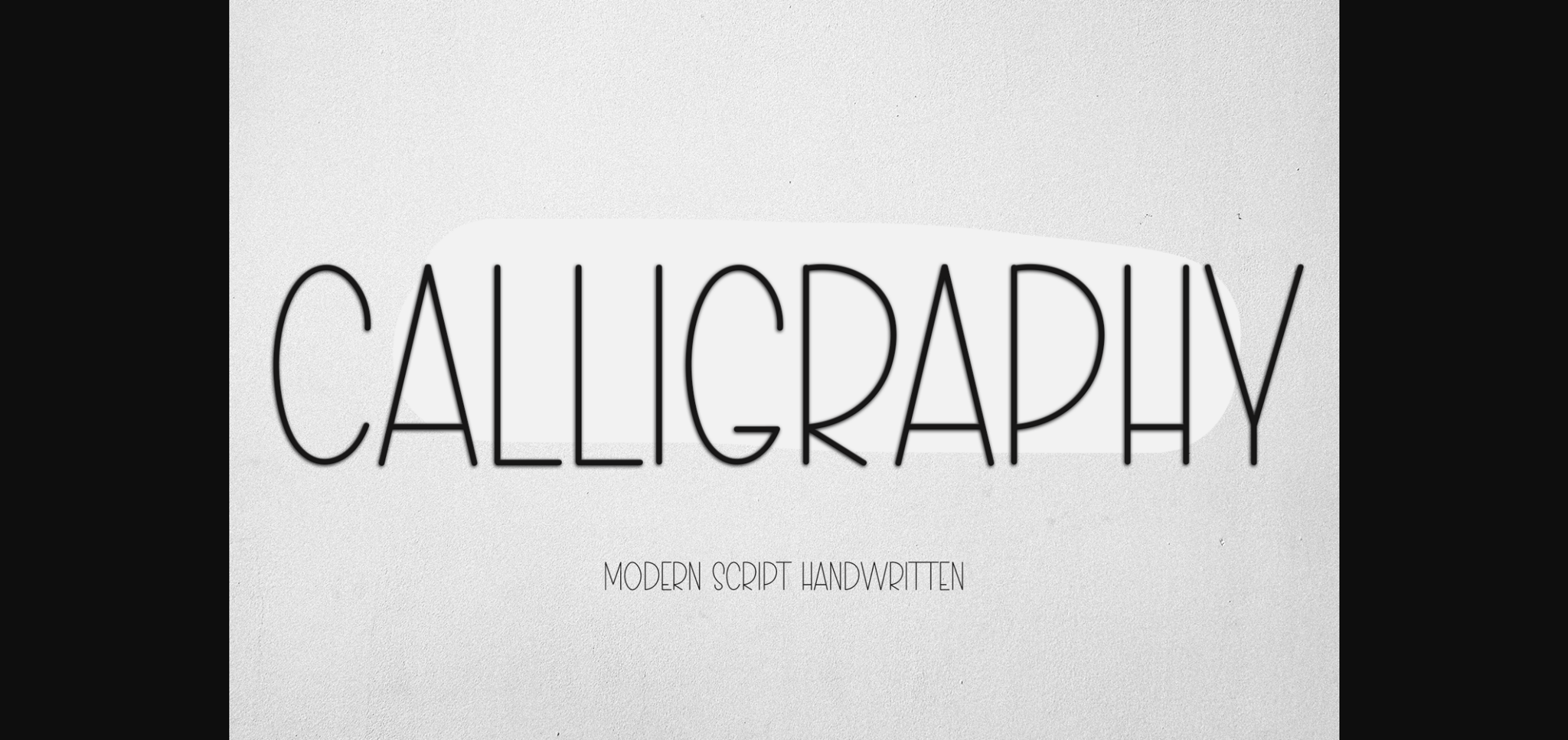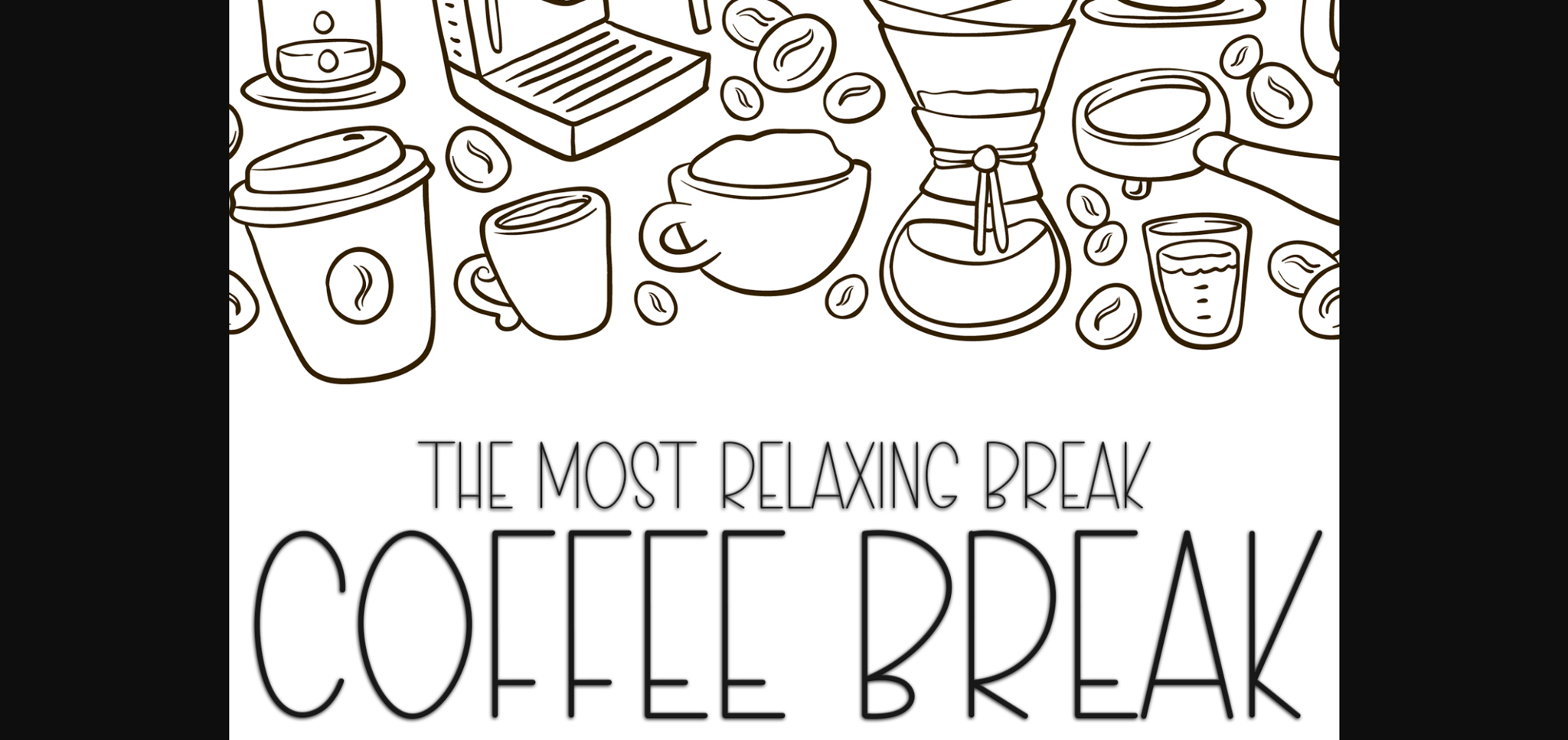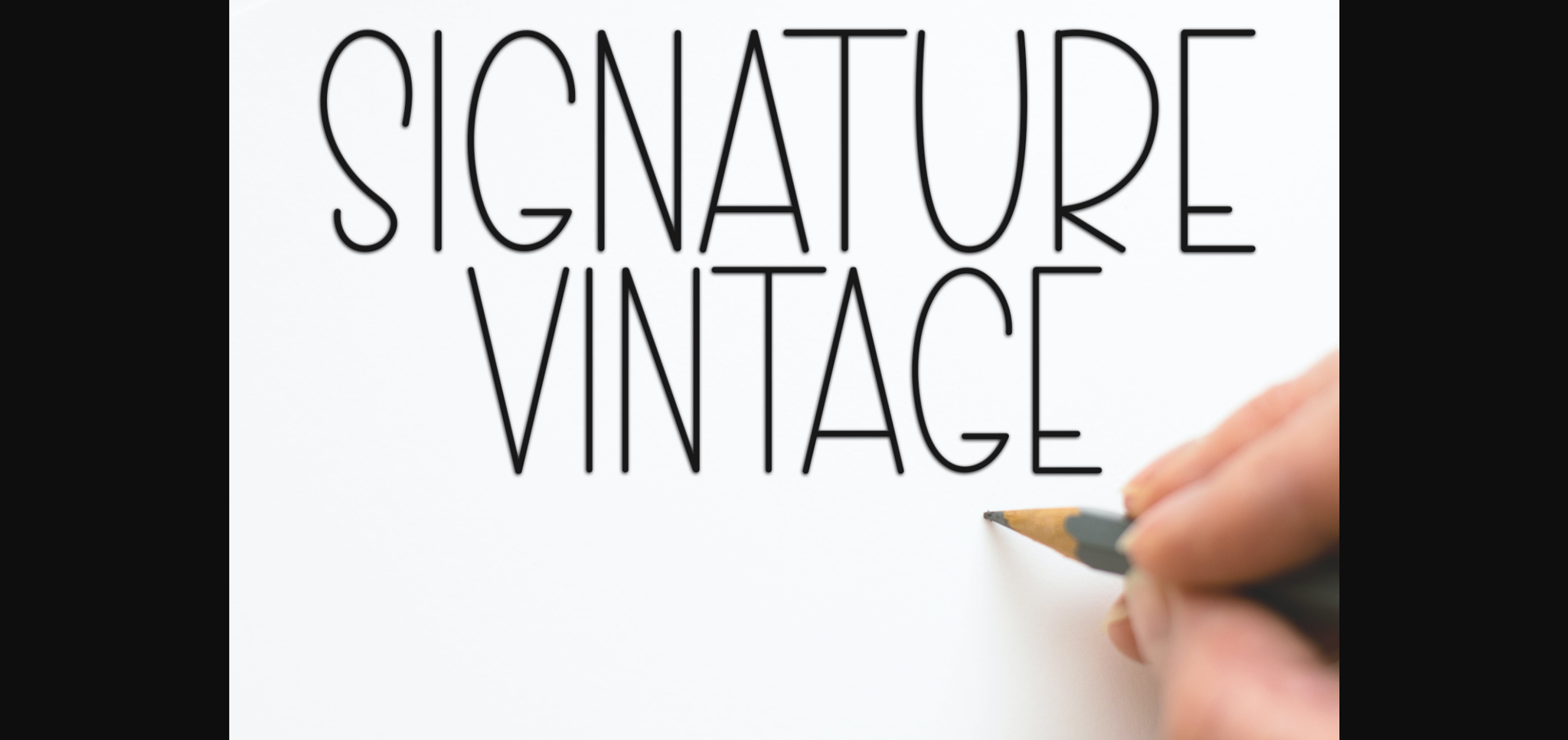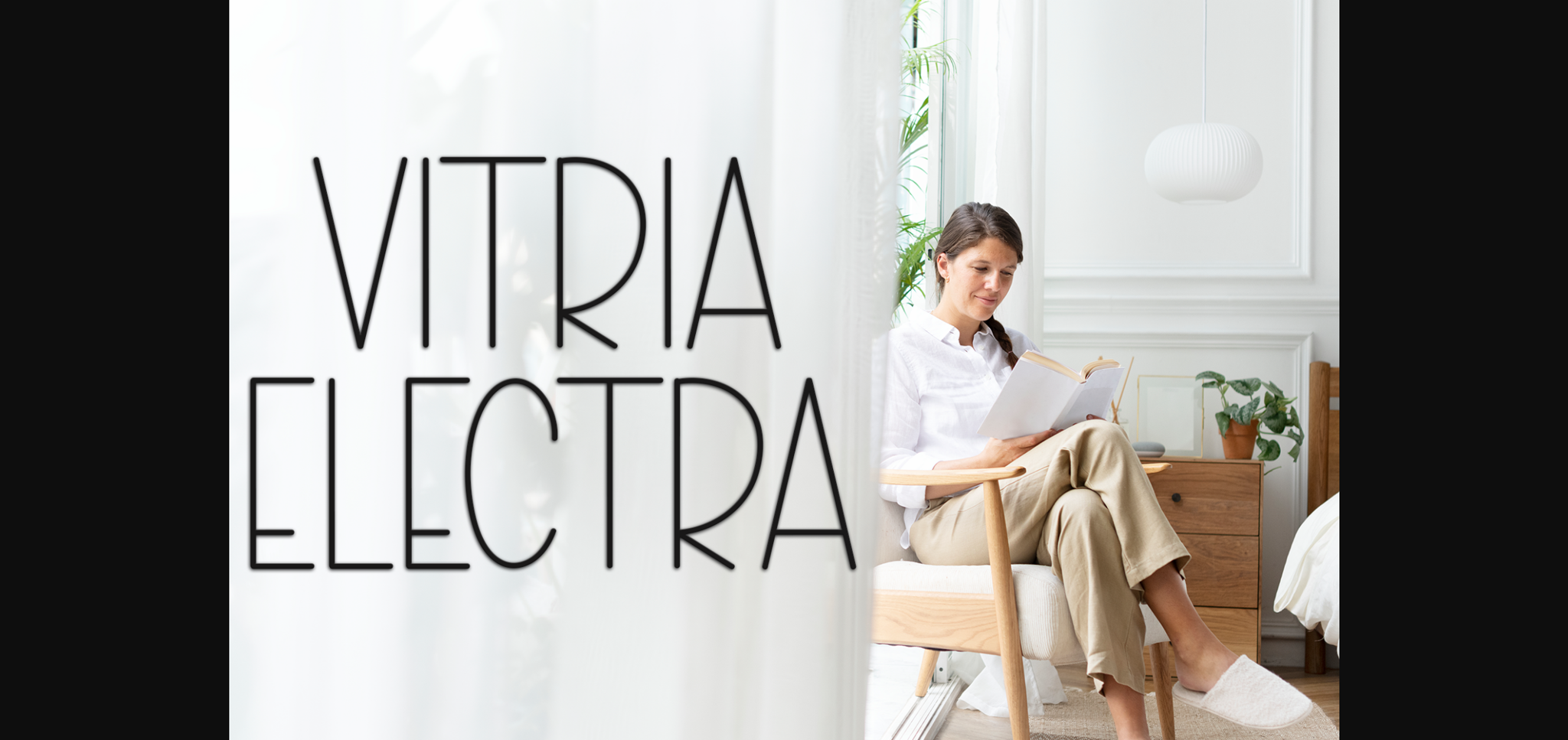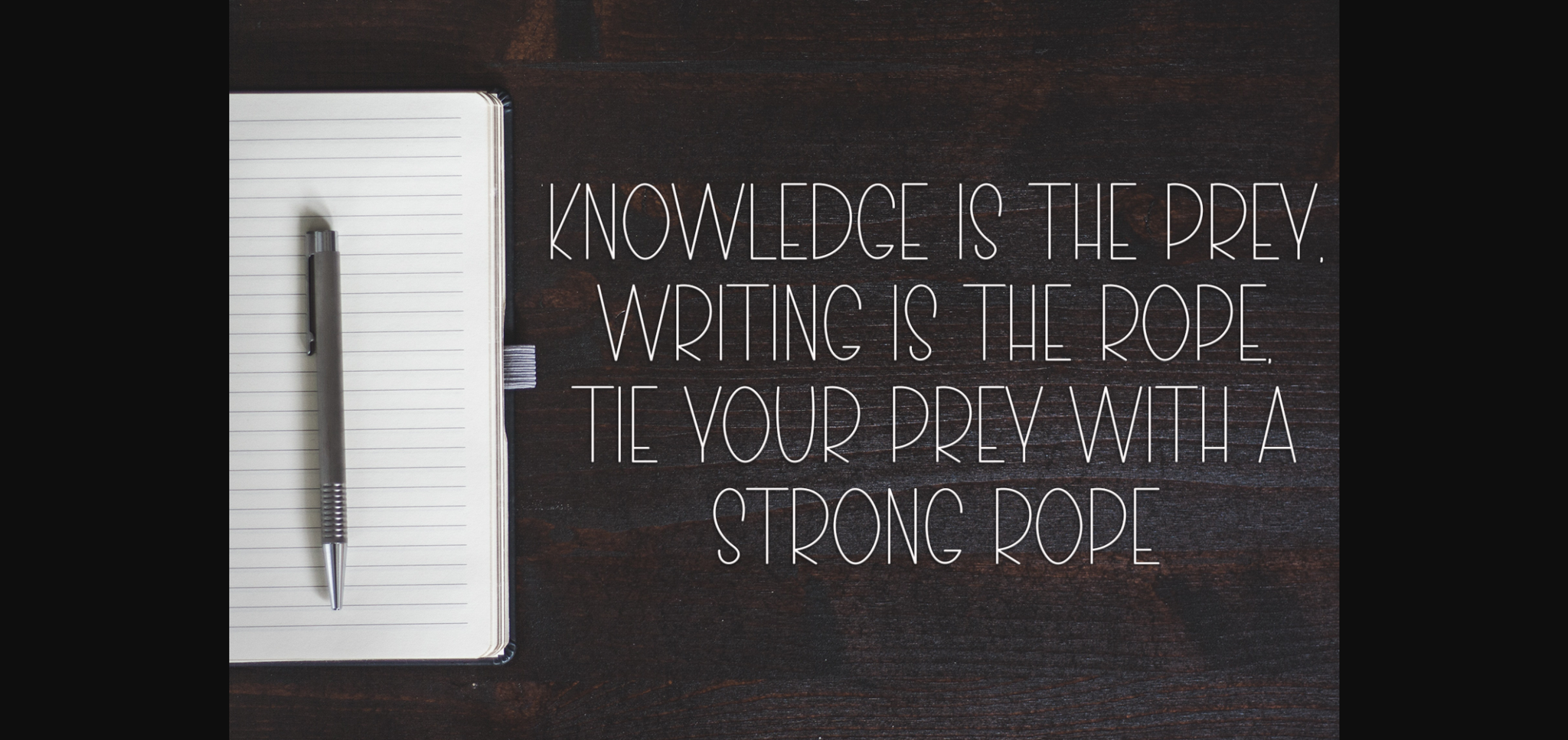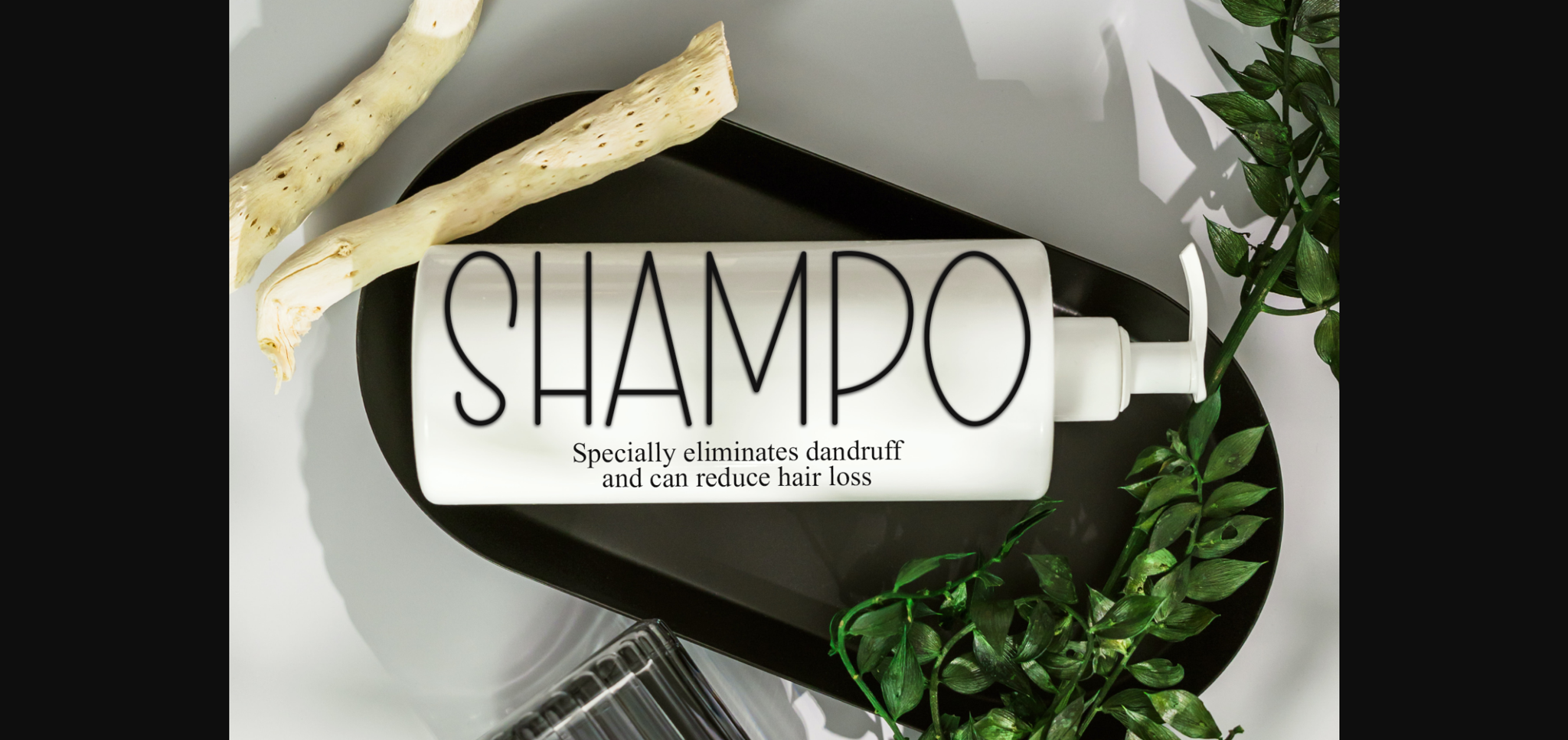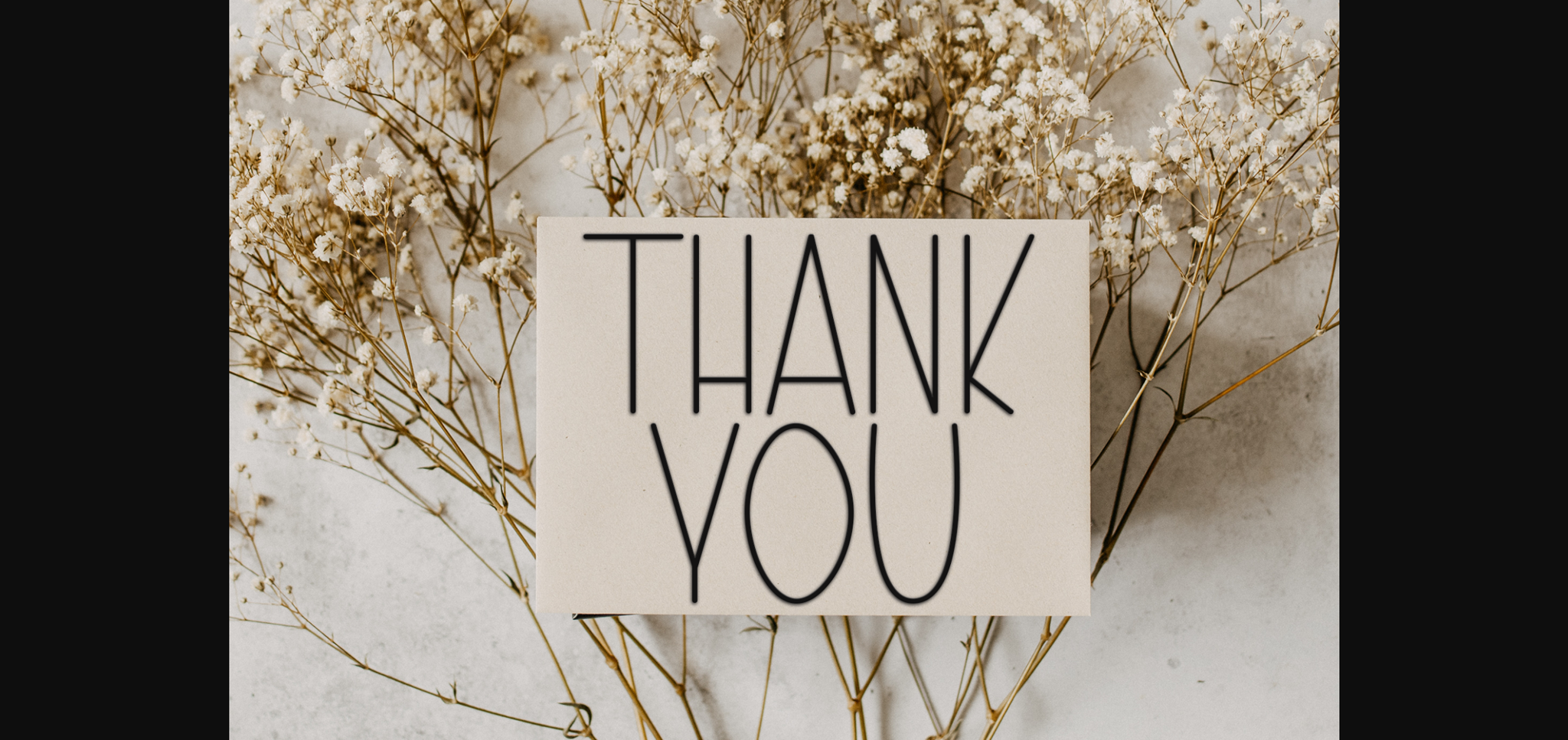
HomeSans Serif FontsCalligraphy Font Sans Serif Fonts Calligraphy Font FacebookXPinterestWhatsApp 1 of 9 ... Calligraphy Font Poster 2... Calligraphy Font Poster 3... Calligraphy Font Poster 4... Calligraphy Font Poster 5... Calligraphy Font Poster 6... Calligraphy Font Poster 7... Calligraphy Font Poster 8... Calligraphy Font Poster 9... About Calligraphy Font Calligraphy is a delicate, elegant, and flowing sans-serif font. It has beautiful and well-balanced characters and as a result, it matches a wide pool of designs. DOWNLOAD NOW People also explored Anjellic Duo Font Something Cool Font Disassembler Carllitos Font Beauxri Font Beone Thin Font Sarlytta Font Pretty September Font Beautyface Script Font 310 0 TagsCalligraphy Font Previous articleJoyfully Accept FontNext articleSchool Font LEAVE A REPLY Cancel reply Comment: Please enter your comment! Name:* Please enter your name here Email:* You have entered an incorrect email address! Please enter your email address here Website: Save my name, email, and website in this browser for the next time I comment. Personal Use Free Madison Script Personal Use Free Read more about this font Royal Bengal Tiger Personal Use Free Read more about this font Manbow Personal Use Free Read more about this font Mini Story Personal Use Free Read more about this font BLOG How to Cut Any Font on Cricut: Convert a Font to SVG (Free) Turn any font into a clean SVG so it cuts crisp on Cricut - a quick 3-step workflow using a free font-to-SVG tool. Transform Your Website: Elevate Your Typography with 7 Best Web Font Generators Fonts That Capture the Spirit of New York City Top 10 Handwritten Fonts That Elevate Your Designs